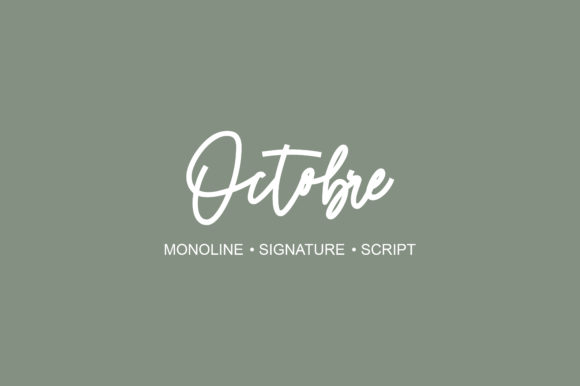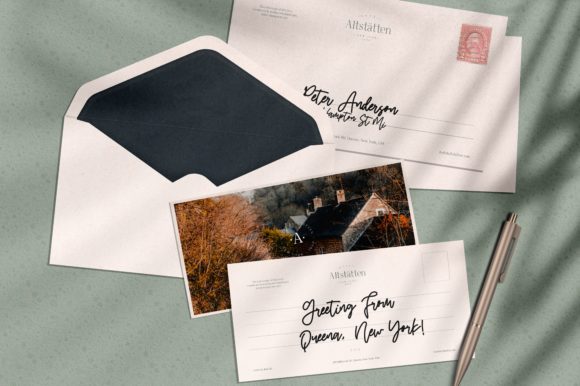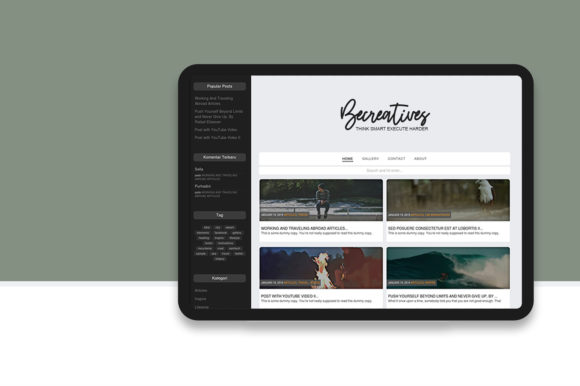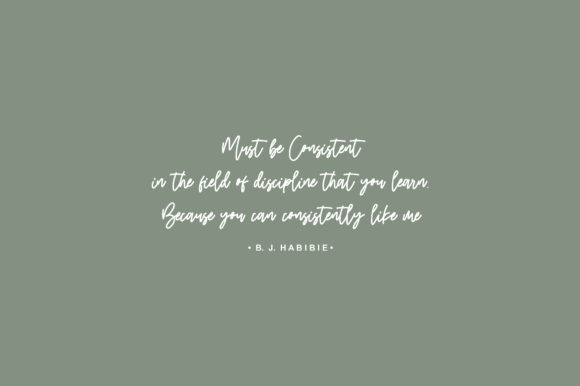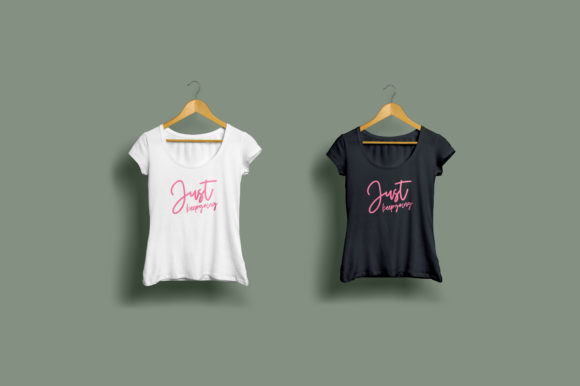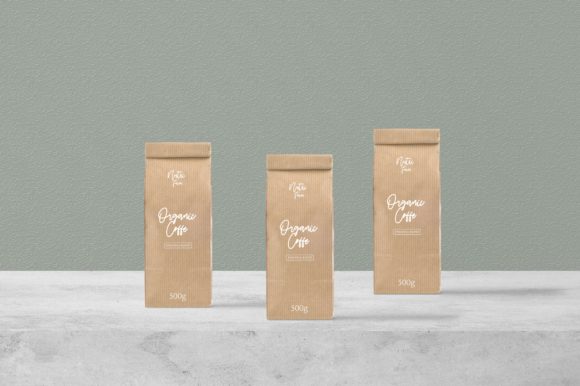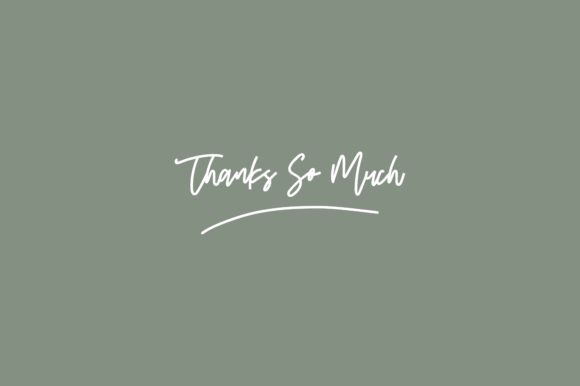
HomeScript FontsOctobre Font Script Fonts Octobre Font FacebookXPinterestWhatsApp Octobre Font Poster 2 Octobre Font Poster 3 Octobre Font Poster 4 Octobre Font Poster 5 Octobre Font Poster 6 Octobre Font Poster 7 About Octobre Font Octobre is a sleek monoline script with a contemporary look. Use it to add a personal touch to any design project! DOWNLOAD ON CREATIVE FABRICAThis font is sold and delivered by Creative Fabrica. Font Canyon may earn a commission if you buy through this link. People also explored Slabest Font Exbert Font Entaman Font Selliattago Font Intently Created Font Sweet Lily Line Monogram Font Maibak Font Retro Snow Font Lily Font 276 0 TagsOctobre Font Previous articleScottish Time FontNext articleDandelion Script Font LEAVE A REPLY Cancel reply Comment: Please enter your comment! Name:* Please enter your name here Email:* You have entered an incorrect email address! Please enter your email address here Website: Save my name, email, and website in this browser for the next time I comment. Personal Use Free Hiters Personal Use Free Read more about this font Starter Personal Use Free Read more about this font Still Time Personal Use Free Read more about this font Bosk Personal Use Free Read more about this font BLOG Best Fonts for T-Shirt Design – Top 2025 Picks In 2025, t-shirt design has become more than just fashion—it's a form of self-expression. Whether you're... Top 10 Handwritten Fonts That Elevate Your Designs Fonts That Capture the Spirit of New York City Exploring Font Trends